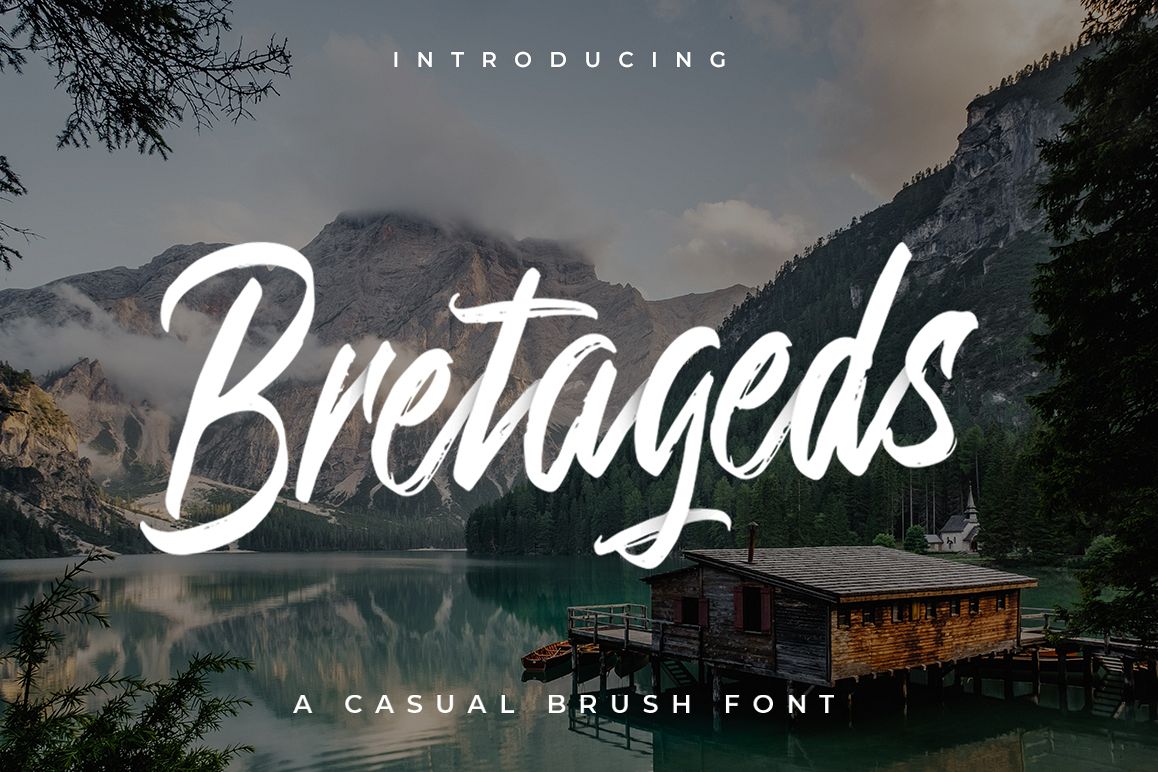
Bretageds Brush Font
Now let us introduce you our new font called "Bretageds Brush Font"
Bretageds is a rough brush script font with a clear style and good flow This font is great for your next creative project such as Logotype, printed quotes, invitations, cards, product packaging, headers, Letterhead, Poster, Apparel Design, Label, and etc.